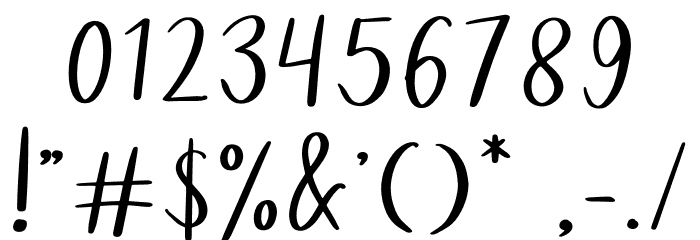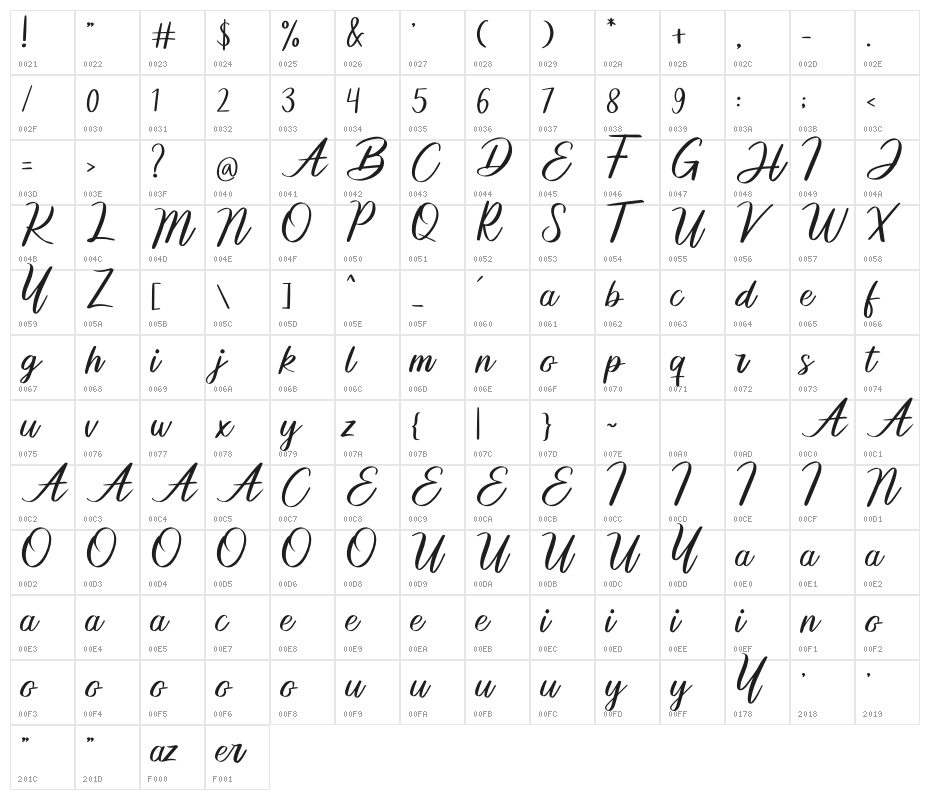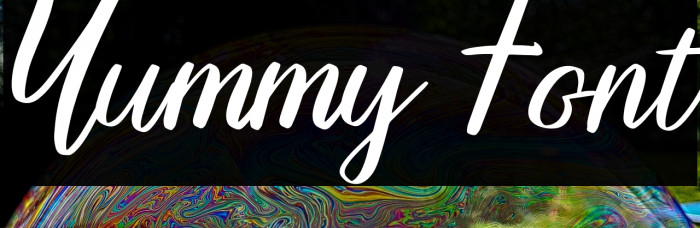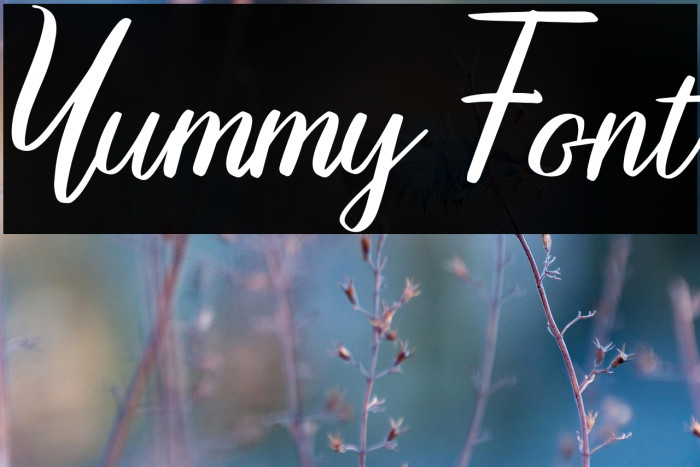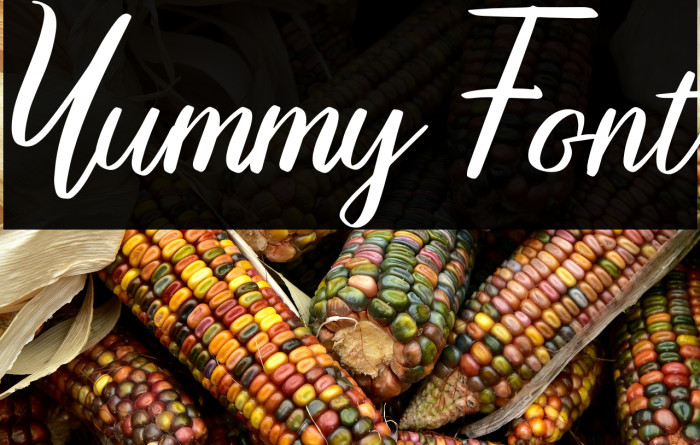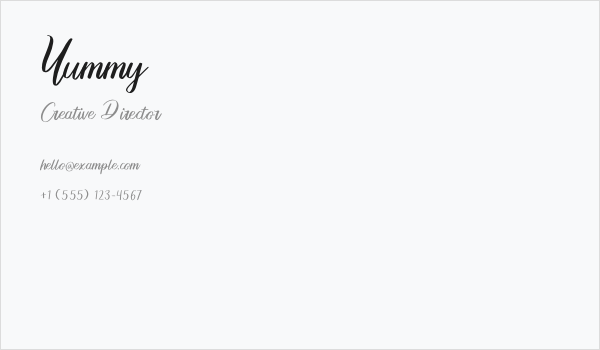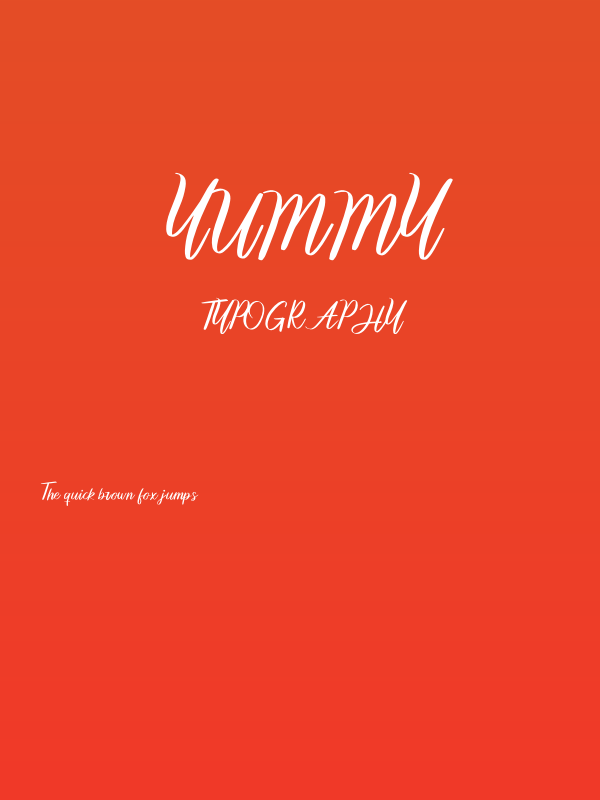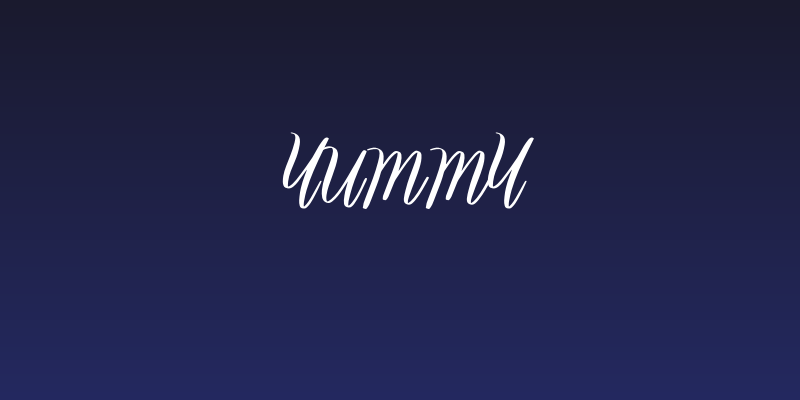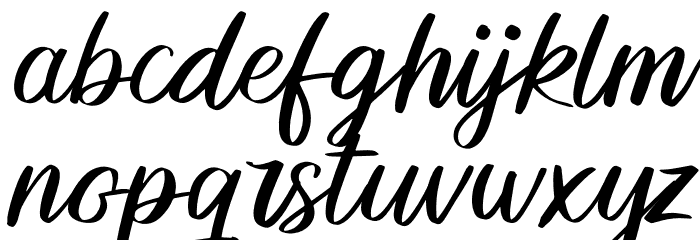
Yummy Font
Yummy Description
This font exudes a lively and dynamic character, featuring a script style with fluid, cursive strokes. The uppercase letters are elegantly connected, while the lowercase letters maintain a consistent flow, enhancing readability. The numerals are bold and slightly slanted, matching the overall energetic feel. Special characters are crafted with the same attention to detail, ensuring a cohesive look across all glyphs. The font's playful yet sophisticated nature makes it ideal for projects that require a personal touch, such as invitations, greeting cards, and branding materials.